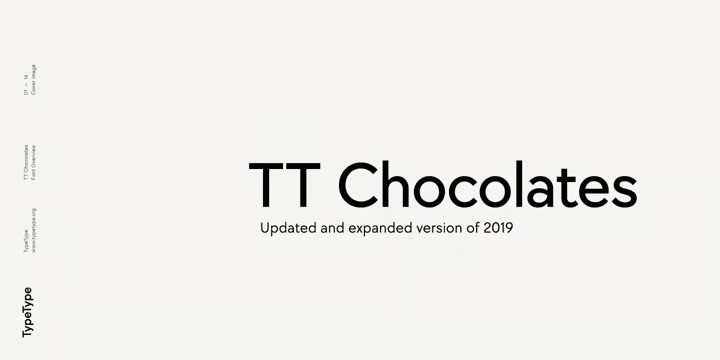
How outstanding! TT Chocolates Sans Serif Font Family.
We are glad to present you the completely updated TT Chocolates font family. Initially, we just wanted to freshen up and modernize a popular typeface, but in the process of work, it became clear that we could not just do with simple edits—and this was how a completely revised TT Chocolates 2.0 font family appeared. First, we have split all the capital letters into groups and changed their proportions toward the more traditional proportions typical of the Roman capital type. After that, we increased the height of lowercase characters by 15%, while reducing the length of their ascenders and descenders. We’ve also worked on the design of the letters: slightly increased the opening of the aperture, reduced the bleeds in roundings and changed the proportions of round characters. We corrected each contour in every character, and some letters in the font were simply drawn anew. After that, we revised the weight distribution, expanded the palette of faces, and created the optimal interpolation between weights.
Now the TT Chocolates font family consists of 14 fonts: 7 weights and 7 obliques. Due to the extended language support and the introduction of useful OpenType features, the number of glyphs in each of the font has increased to 629 glyphs. The full list of OpenType features: frac, ordn, ccmp, locl, sups, numr, dnom, sinf, onum, lnum, tnum, pnum, liga, dlig, case, salt, ss01, ss02, calt Especially for your convenience, we have divided the stylistic alternates into two sets: the letters a, g are located in stylistic set 01, and the letters I, l, y are in the second stylistic set. This solution allows you to turn them on independently of each other. We also did not forget about the standard and discretional ligatures, old-style figures, and other useful features.
After all the updates, TT Chocolates has become a sturdy text sans-serif with a wide palette of characters, dense typesetting, and very balanced proportions. And thanks to the manual TrueType hinting, TT Chocolates is also perfect for using on the web.